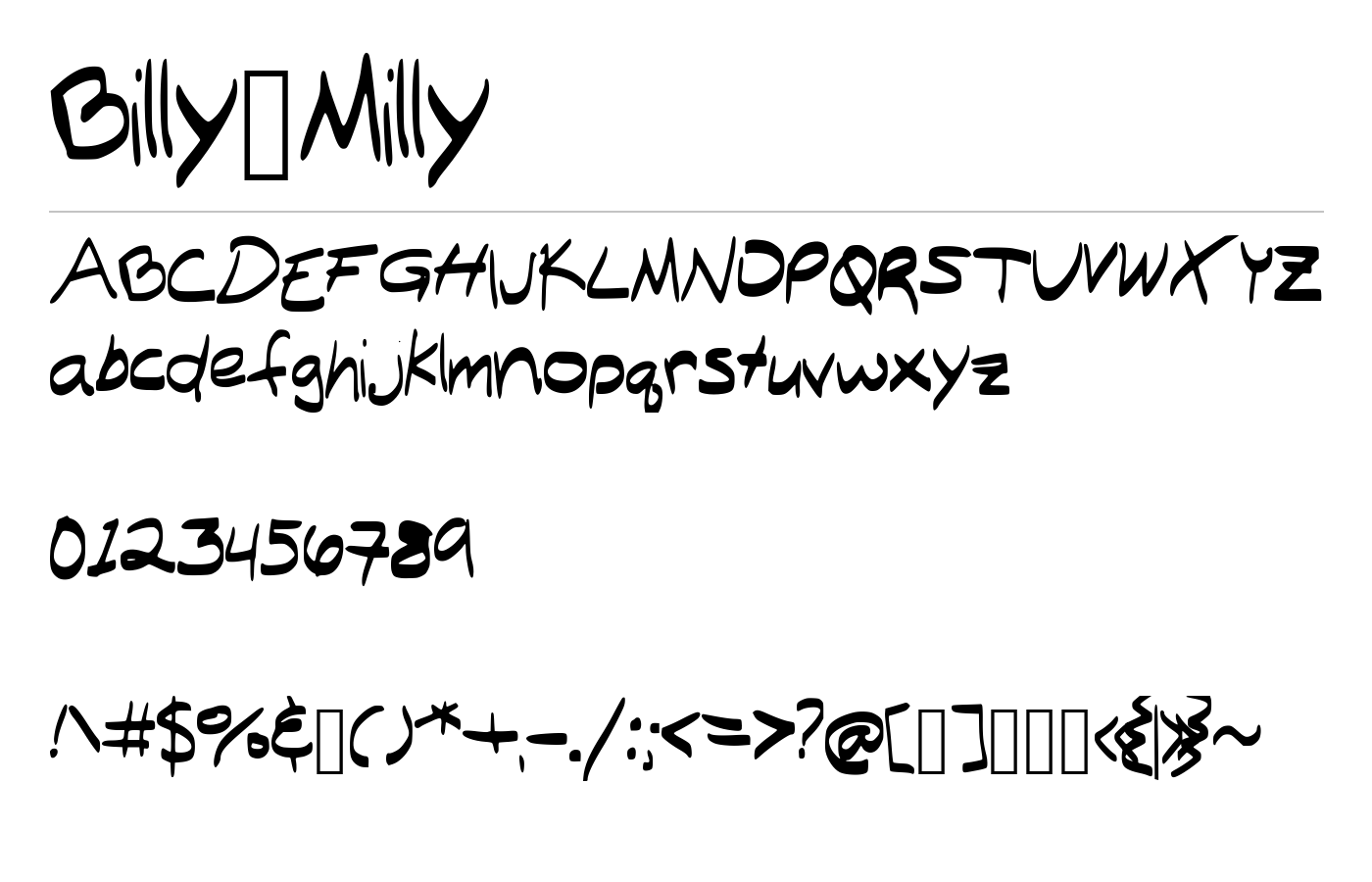
Billy Milly is a playful, hand-drawn sans serif font with an energetic and casual vibe. Its uneven strokes, quirky letter shapes, and lively character make it perfect for fun, creative projects like children’s books, informal branding, or eye-catching headlines. This font adds a personal, approachable feel where a relaxed and friendly tone is desired.
Billy_Milly Font
About Billy_Milly Font